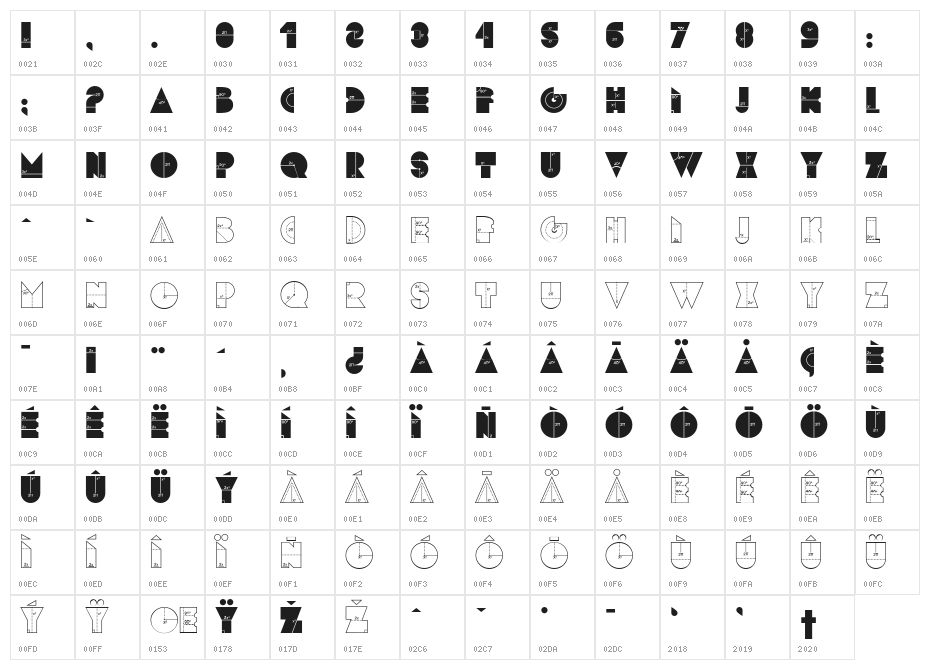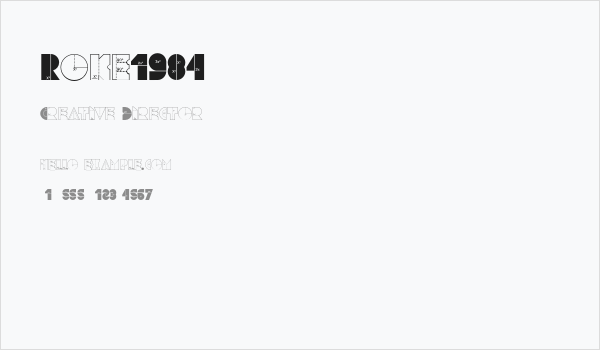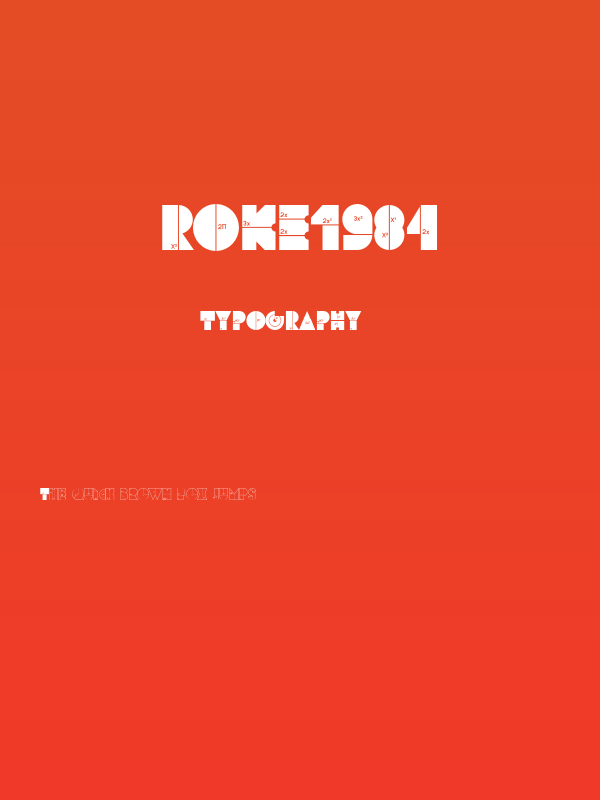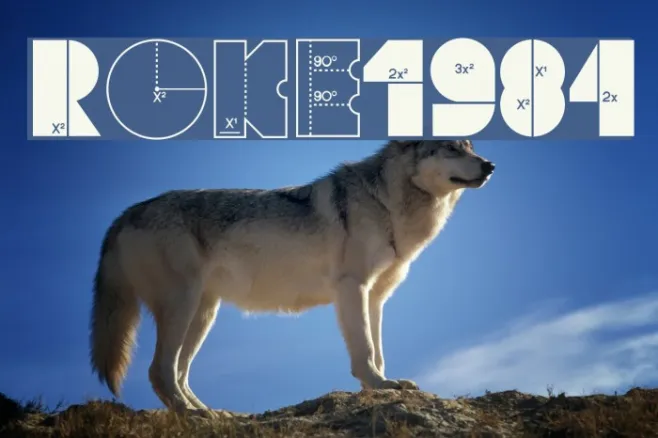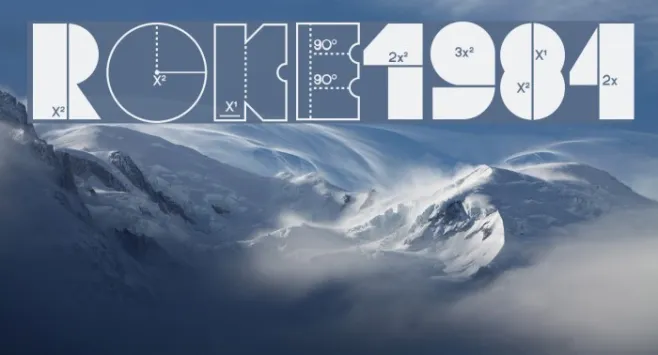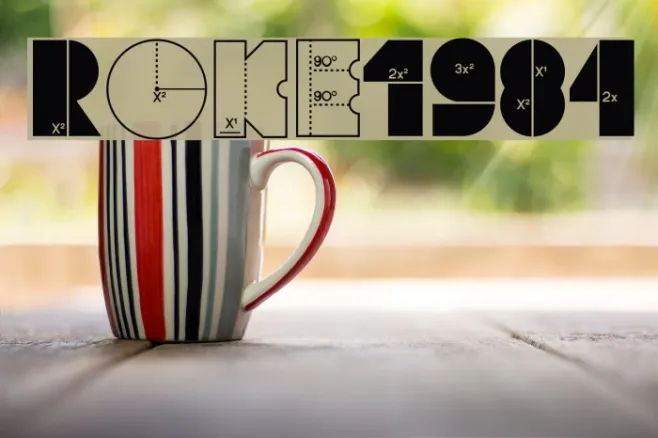
Roke1984 Font
Roke1984 Description
This font features a bold and geometric design, characterized by its use of solid shapes and mathematical symbols within each character. The uppercase letters are constructed with a mix of circles, triangles, and rectangles, giving them a unique, architectural feel. The lowercase letters maintain this geometric theme, offering a cohesive look throughout the typeface. Numbers are similarly styled, with each digit incorporating distinct geometric elements. The special characters are minimal yet consistent with the overall design. This font is ideal for projects that require a modern and technical aesthetic, such as engineering presentations or architectural branding.
| Proposed Projects | Ideal for engineering presentations, architectural branding, and modern graphic design projects. |